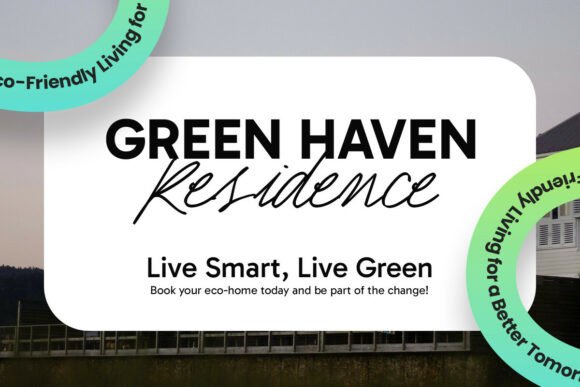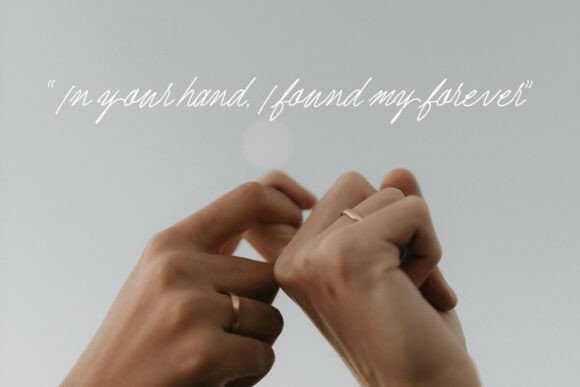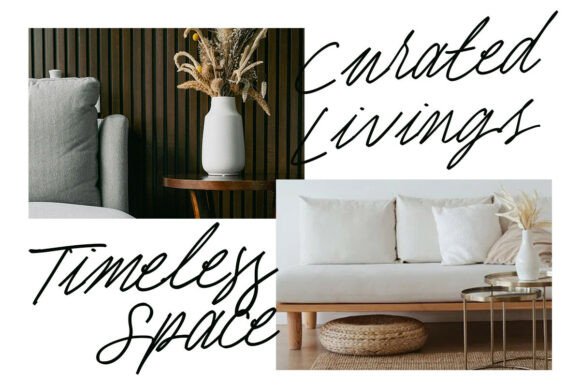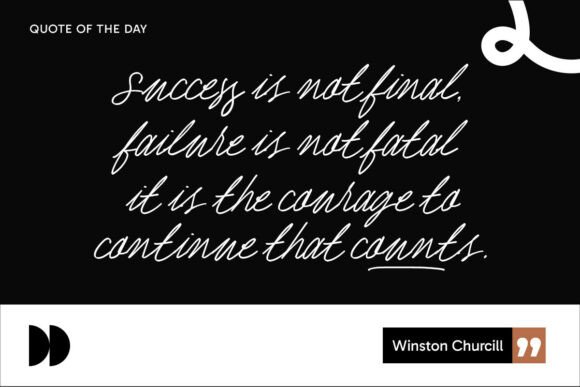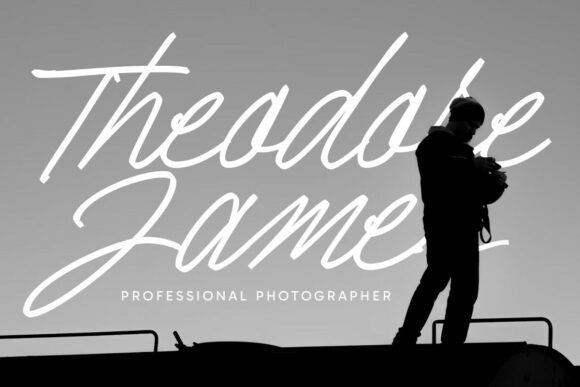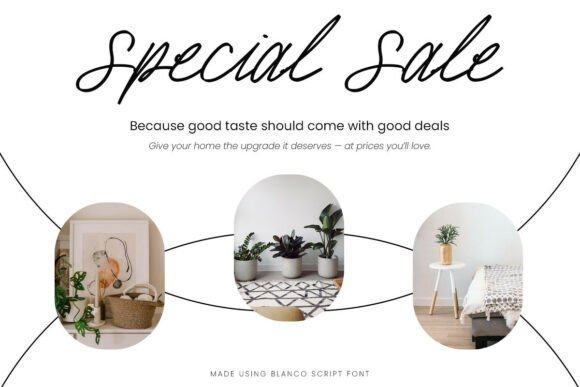
Introducing Blanco Script Font: The Epitome of Effortless Elegance
In the realm of typography, few fonts manage to capture the essence of real handwriting while exuding an air of sophistication. Blanco Script Font is one such gem that has been making waves in the design community. This natural handwritten font is the perfect blend of casual charm and editorial finesse, making it an ideal choice for designers and crafters looking to infuse their projects with a personal touch.
The Unique Characteristics of Blanco Script Font
Blanco Script Font boasts a distinctive set of features that set it apart from other fonts in its category. Its thin, fluid strokes are reminiscent of handwritten text, evoking a sense of spontaneity and creativity. The loose, spontaneous rhythm of the font adds to its charm, giving it a relaxed yet refined feel. This unique blend of characteristics makes Blanco Script perfect for projects that require a touch of elegance and a dash of personality.
Ideal Applications for Blanco Script Font
So, where can you use Blanco Script Font to make an impact? The possibilities are endless, but here are some ideal applications:
• Fashion Branding: Blanco Script Font is a natural fit for fashion brands looking to establish a unique identity. Its elegant, refined strokes make it perfect for logo designs, packaging, and marketing materials.
• Magazine Layouts: Add a touch of sophistication to your magazine layouts with Blanco Script Font. Its fluid strokes and spontaneous rhythm make it ideal for article titles, subtitles, and quotes.
• Personal Logos: Create a lasting impression with a personal logo that exudes elegance and creativity. Blanco Script Font is perfect for crafters, artists, and entrepreneurs looking to establish a strong brand identity.
• Creative Projects: Whether you’re working on a DIY project, a creative journal, or a handmade card, Blanco Script Font is the perfect choice. Its effortless charm and expressive strokes make it ideal for projects that require a personal touch.
Why Designers and Crafters Love Blanco Script Font
So, what makes Blanco Script Font a favorite among designers and crafters? Here are a few reasons:
• Authenticity: Blanco Script Font captures the essence of real handwriting, making it perfect for projects that require an authentic touch.
• Expressiveness: The font’s fluid strokes and spontaneous rhythm make it ideal for creative projects that require a dash of personality.
• Versatility: Blanco Script Font can be used in a variety of applications, from fashion branding to personal logos and creative projects.
• Elegance: The font’s refined strokes and elegant charm make it perfect for projects that require a touch of sophistication.
Tips for Using Blanco Script Font Effectively
To get the most out of Blanco Script Font, here are a few tips to keep in mind:
• Pair it with a sans-serif font: Combine Blanco Script Font with a sans-serif font to create a striking contrast that adds visual interest to your project.
• Experiment with colors: Blanco Script Font looks stunning in a variety of colors. Experiment with different hues and shades to find the perfect combination for your project.
• Play with sizes: The font’s elegant strokes and fluid rhythm make it perfect for use in a variety of sizes. Experiment with different font sizes to create visual hierarchy and emphasis.
Blanco Script Font is a true gem in the world of typography. Its unique blend of effortless charm and editorial finesse makes it perfect for designers and crafters looking to infuse their projects with a personal touch. With its thin, fluid strokes and loose, spontaneous rhythm, Blanco Script Font is ideal for fashion branding, magazine layouts, personal logos, and creative projects that aim to feel authentic and expressive. So why wait? Give Blanco Script Font a try and discover the power of elegant, handwritten typography for yourself!